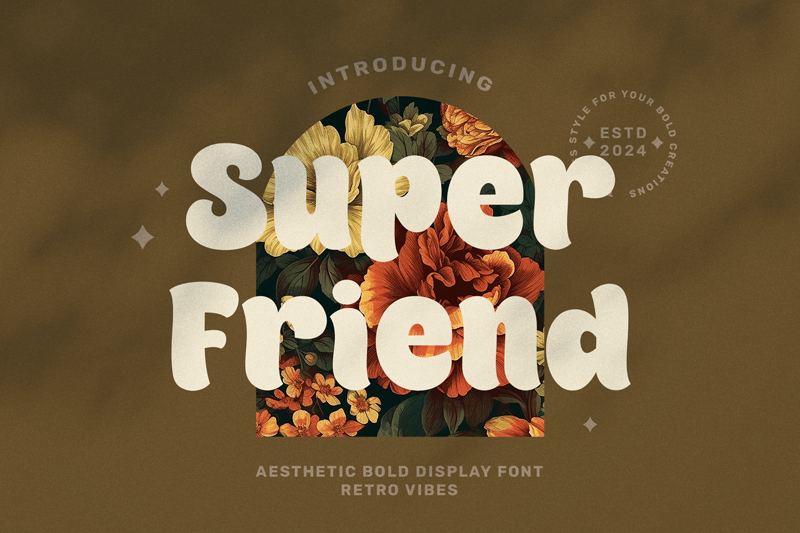
This font is for PERSONAL USE ONLY!. If you want to use this font for commercial purposes, you will need to purchase a commercial license. You can purchase a commercial license at https://allsuperfont.com/product/super-friend/ Super Friend Font: A Bold and Retro Aesthetic The�Super Friend�font is a captivating typeface that seamlessly blends boldness with nostalgic retro vibes. Its unique design evokes memories of vintage posters, logos, and classic flyers. The�Super Friend�font invites users to embark on a journey through time, celebrating the bold and vibrant spirit of yesteryears. |